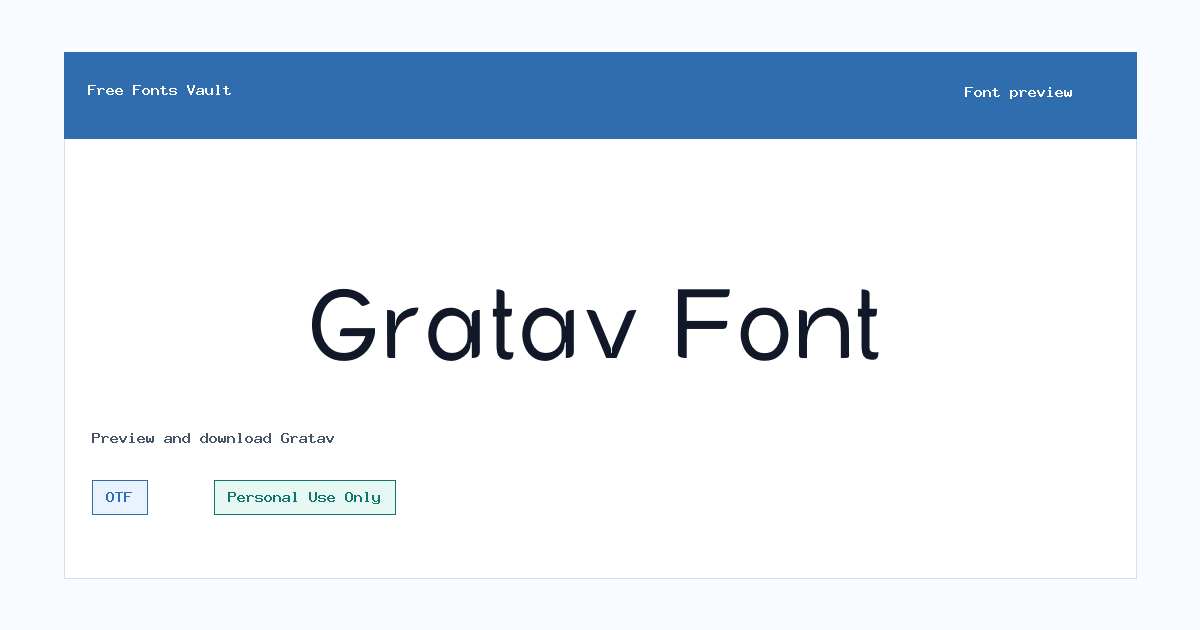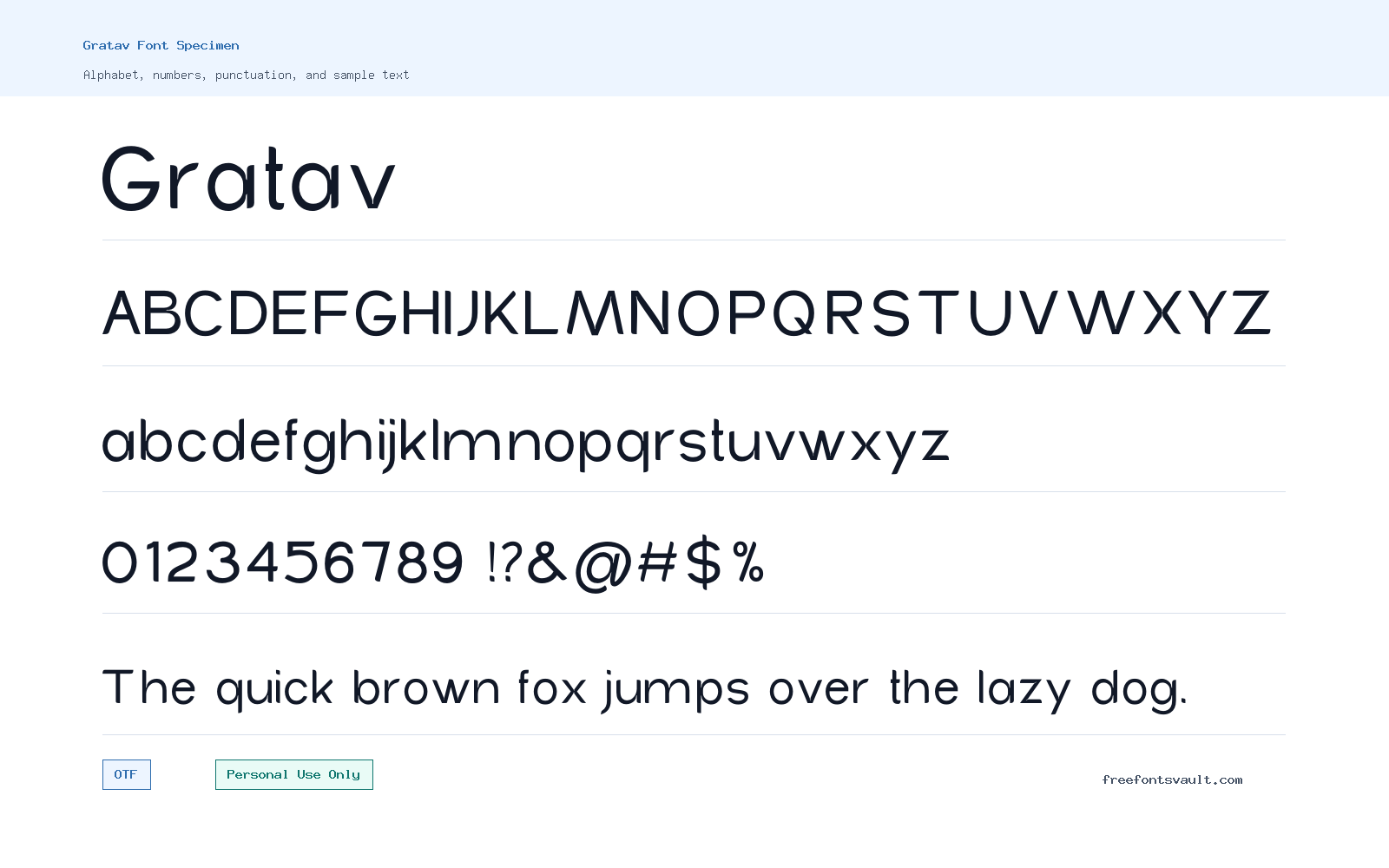
Gratav
Gratav is a sans serif font with a clean, modern look that works best when you need short text to feel clear and composed. It is suitable for previewing in titles, poster layouts, logo drafts, social graphics, and web mockups, with an important reminder that the listed license is Personal Use Only.
Gratav gives designers a straightforward sans serif option for projects that need a neat display style without heavy decoration. The regular OTF file is marked as normal style and 400 weight, so it is best treated as the main upright version of the family. Because only one regular variant is listed, it is a good fit for simple title tests, clean headings, short labels, and brand concept drafts where you do not need a large range of weights.
Use the preview box to test the exact words you plan to design with, especially if you are working on a logo, poster headline, YouTube thumbnail, packaging mockup, or landing-page hero. A single-weight sans serif can look polished in short phrases, but it may need spacing adjustments for logos or large headlines. Try uppercase, lowercase, numbers, and punctuation before downloading, and check how the letters behave at both large display sizes and smaller caption sizes.
For posters and social graphics, pair Gratav with a contrasting text face rather than using it for every line. A readable serif, a neutral sans serif, or a simple system font can handle longer descriptions while Gratav carries the main title. If your design uses a dark photo background or busy texture, add enough contrast and generous spacing so the letterforms stay readable. Avoid forcing the font into long paragraphs unless your preview confirms it remains comfortable to read.
- Sans serif design direction suited to clean titles, short display text, and simple branding tests.
- Useful for previewing logos, posters, social posts, thumbnails, packaging drafts, and web layout concepts.
- Single listed variant, so it is easiest to use when one consistent text style is enough.
- Logo concept drafts and personal branding experiments
- Poster headlines and event-style title layouts
- Social media graphics, quote cards, and thumbnail text
- Website hero mockups, navigation tests, and clean UI headings
- Packaging, label, and merchandise previews for non-commercial exploration
- Moodboards and typography studies where a simple sans serif is needed
What should I pair Gratav with?
Pair it with a simple, readable body font. A neutral sans serif works for modern layouts, while a restrained serif can add contrast. Keep Gratav for titles or short emphasis if your layout has a lot of text.